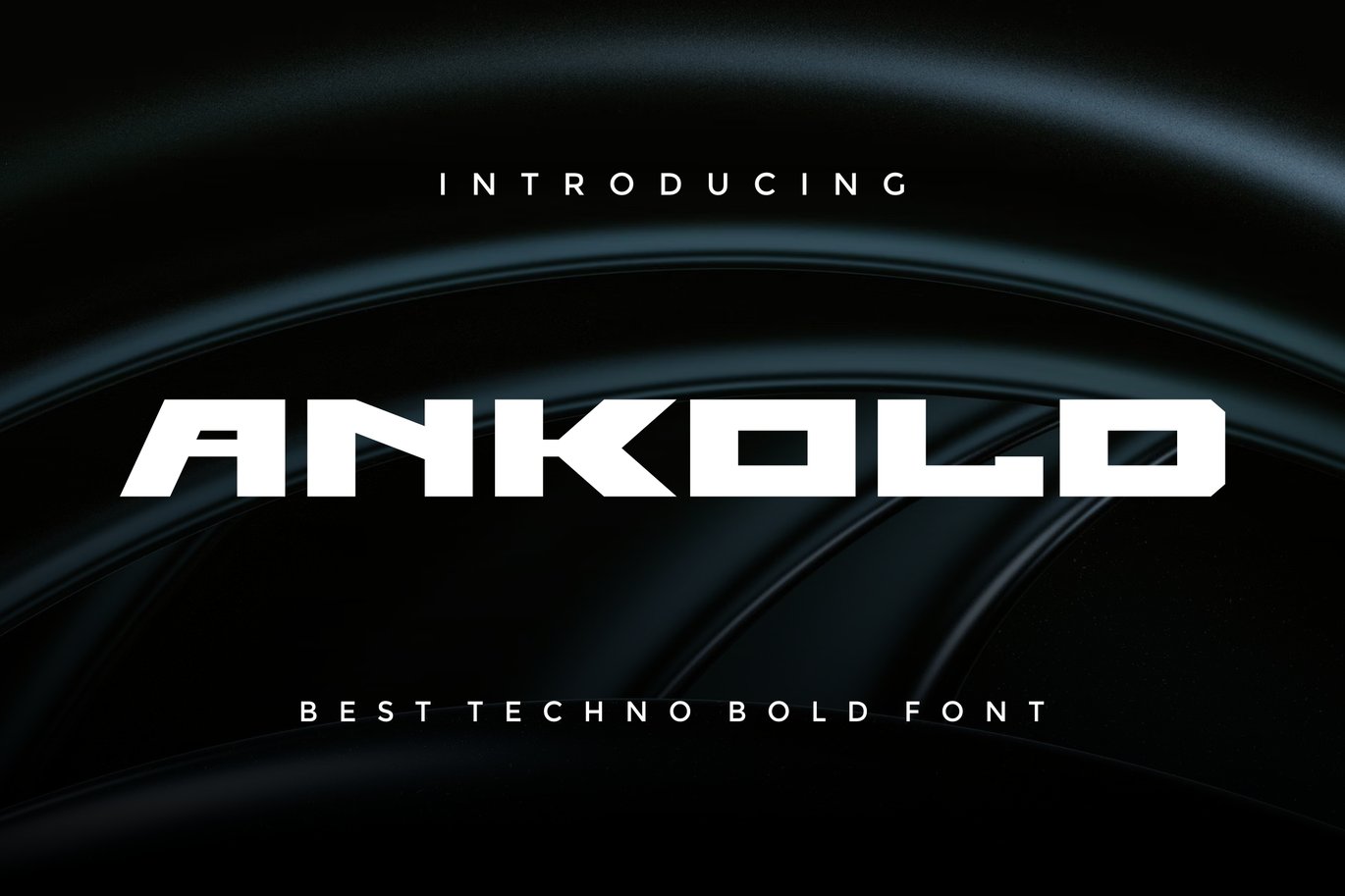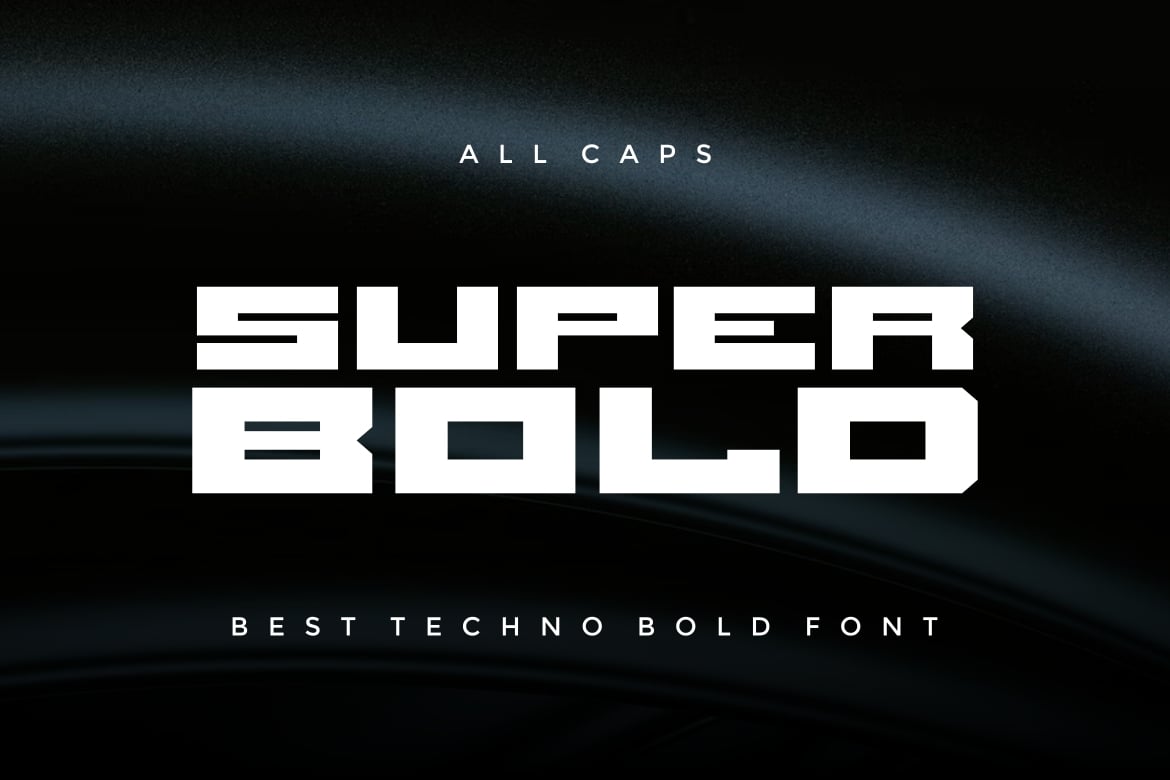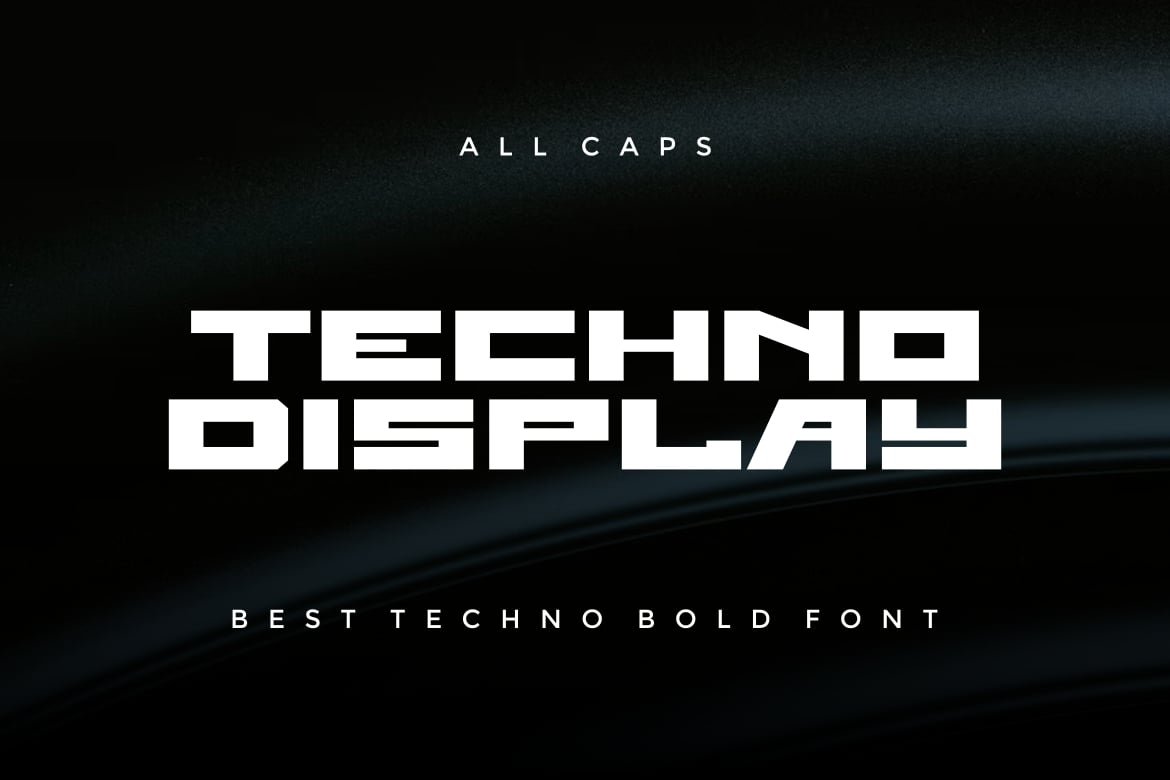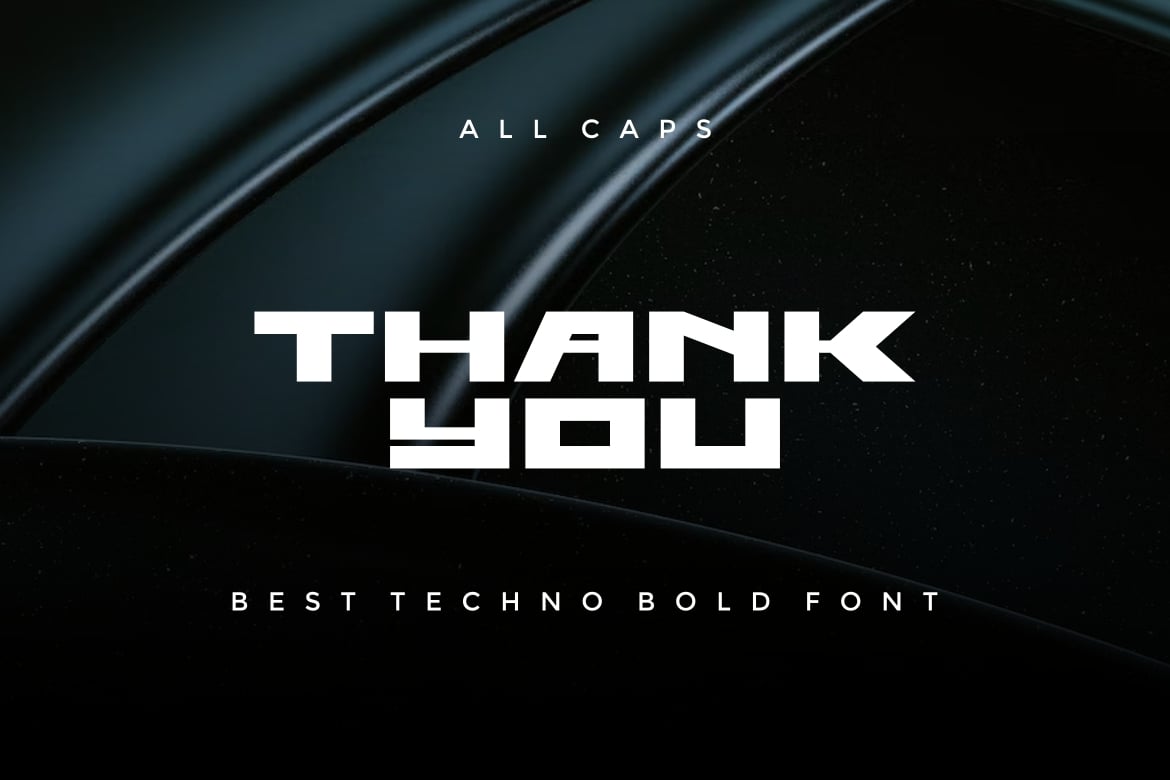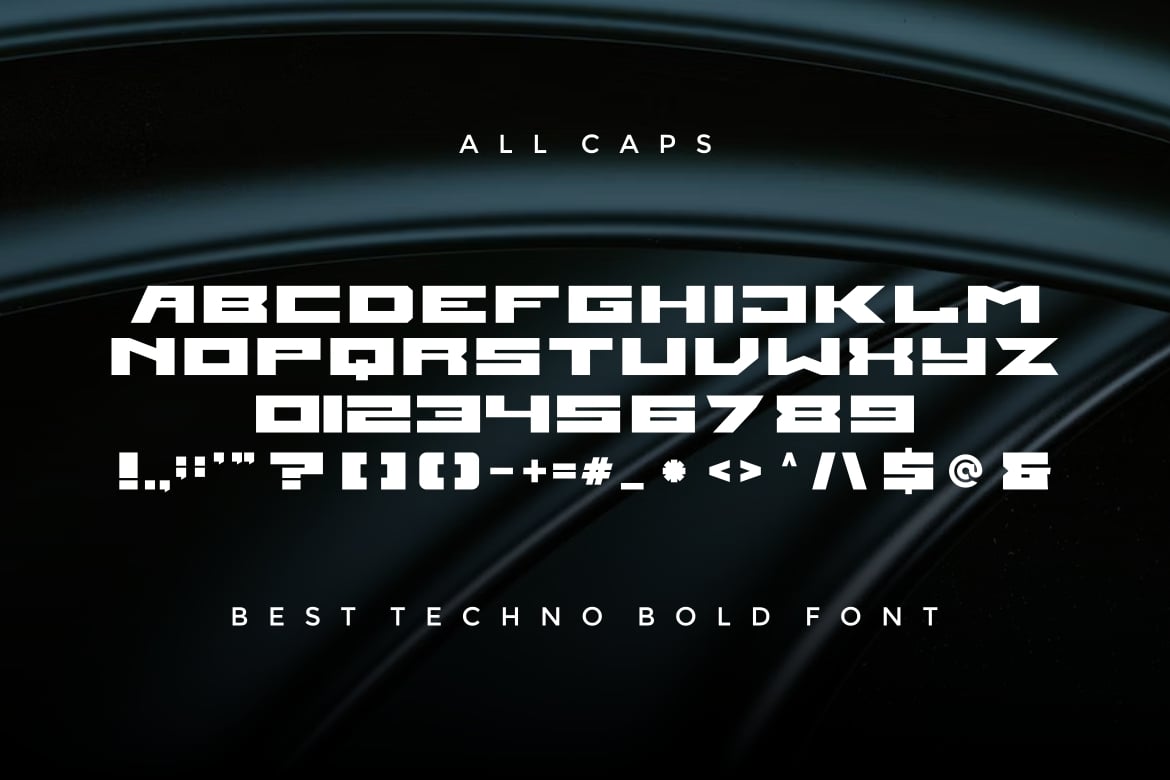
Ankold – Modern Bold Font
Introducing our new product Ankold – Modern Font
Ankold A techno font that embodies modernity and innovation. With its sleek lines and futuristic design, Ankold exudes energy and sophistication. Ideal for digital interfaces, graphic design, and branding, it adds a dynamic and edgy flair to any project.